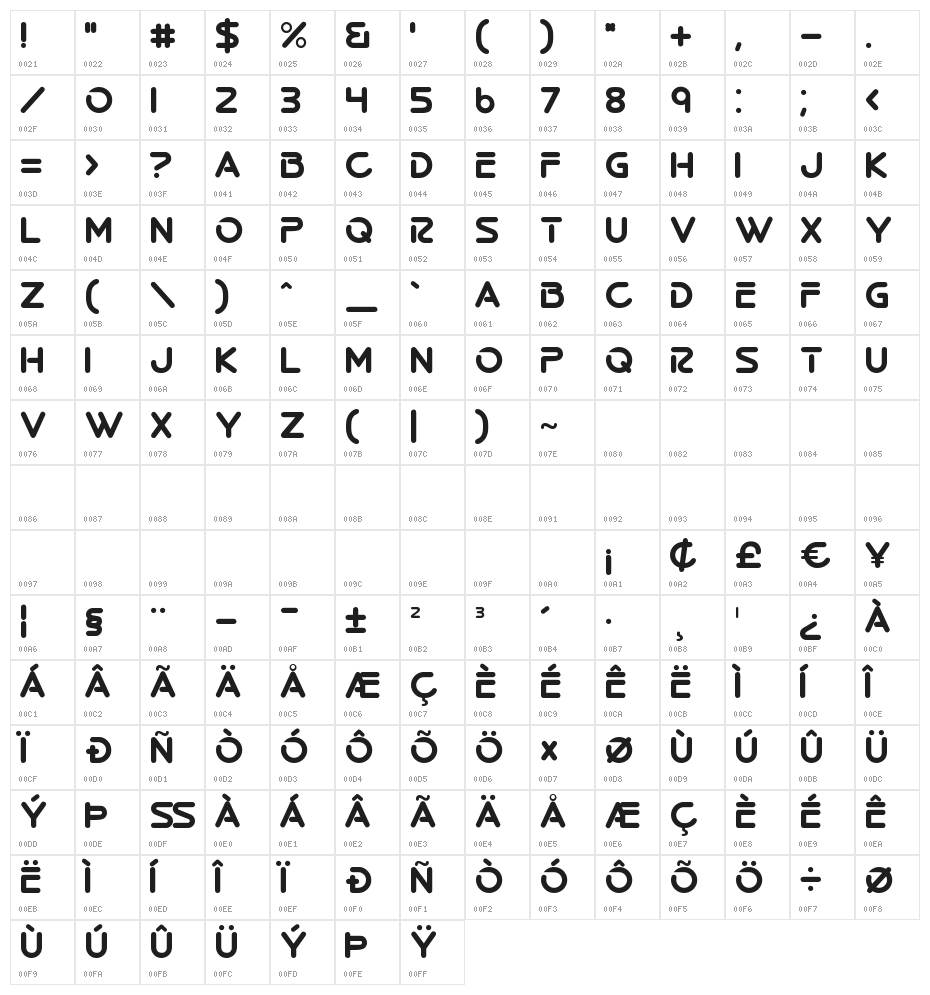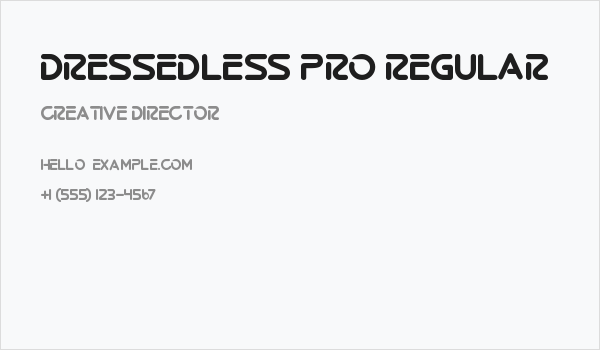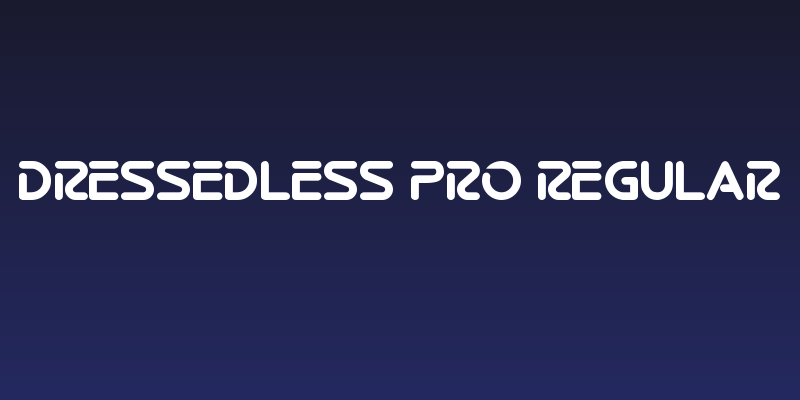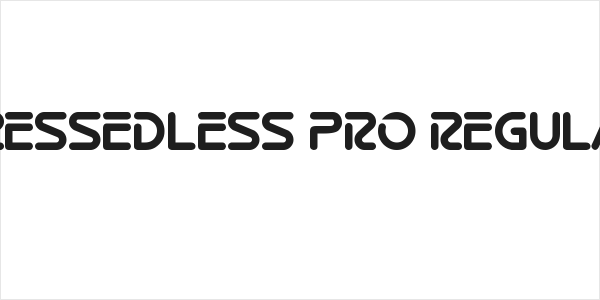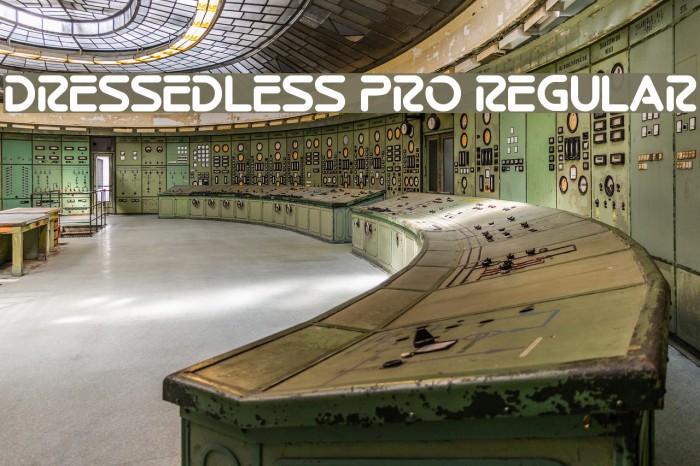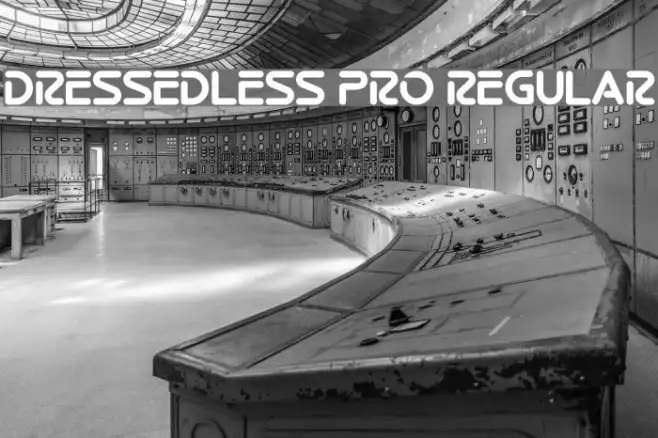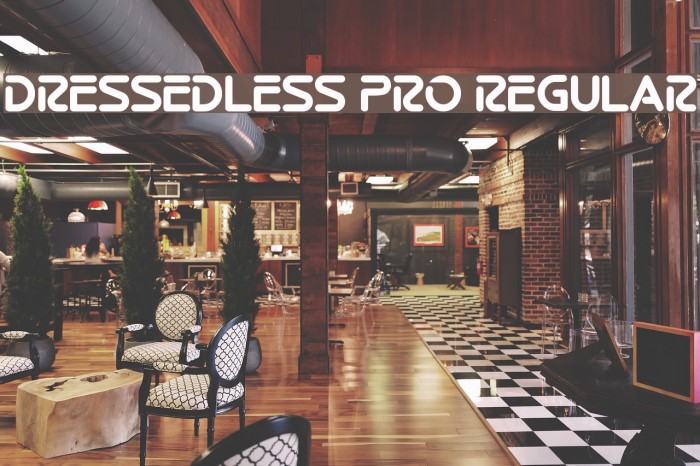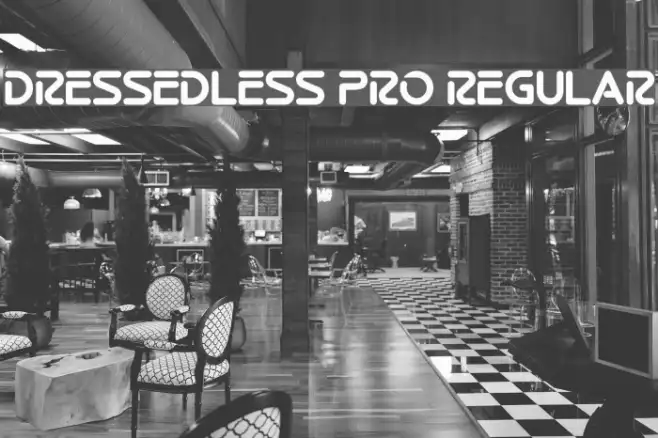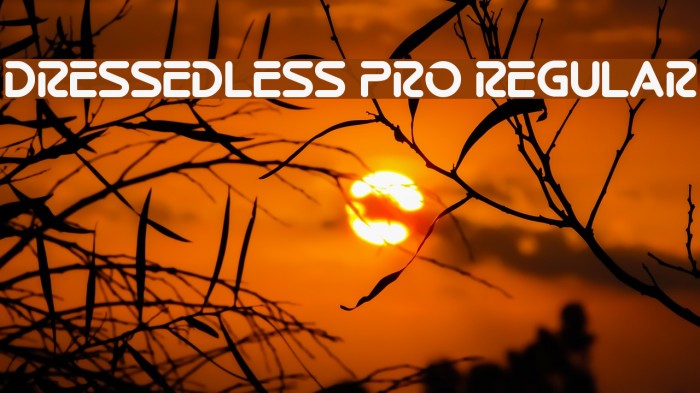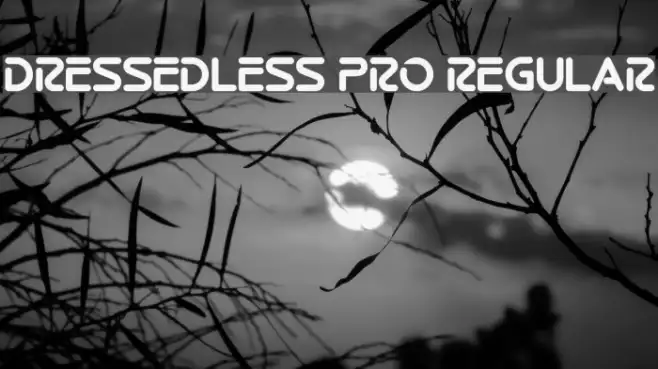
Dressedless Pro Regular Font
Dressedless Pro Regular Description
This font features a bold and modern design with rounded edges and a geometric structure. The characters are uniform in width, creating a cohesive and balanced appearance. The uppercase and lowercase letters maintain a consistent style, with smooth curves and clean lines. The numerals are distinct and easy to read, while the special characters blend seamlessly with the overall aesthetic. This font's unique style makes it suitable for a variety of creative applications, offering a contemporary and stylish look.